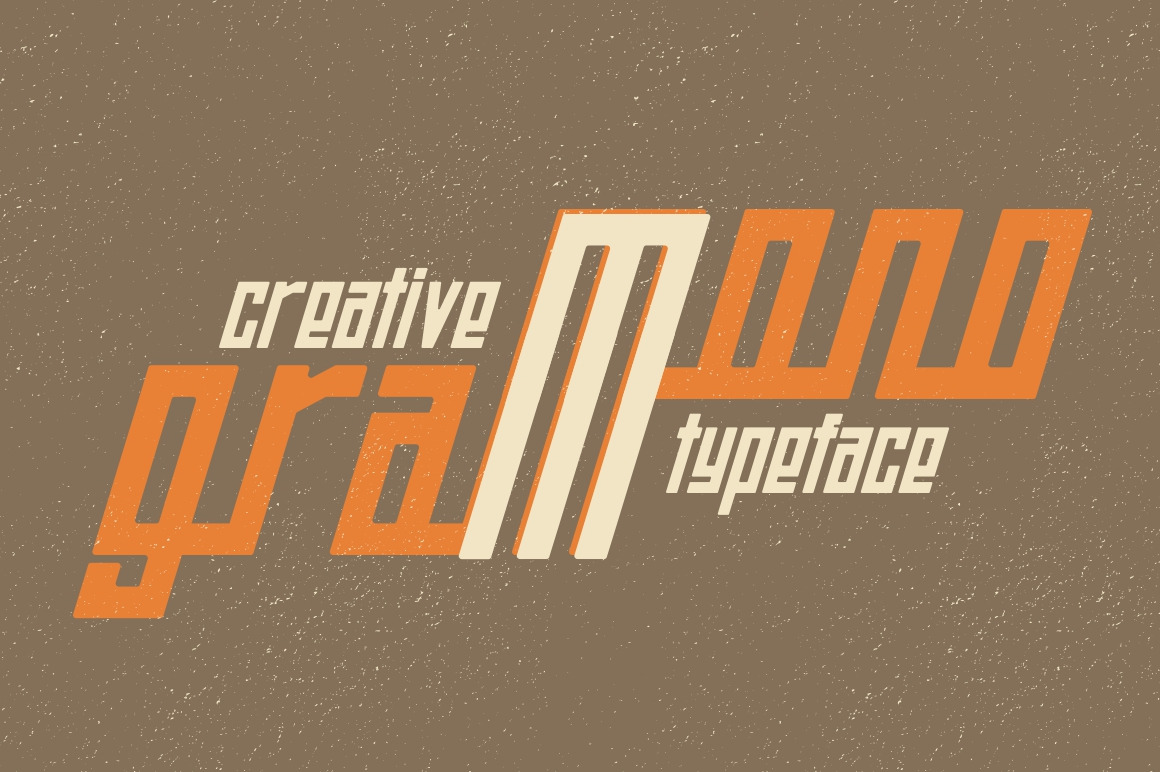
Monogram Typeface
Monogram is the perefct typeface to use for logos & titles.
It features 4 custom ligatures that will help you create nice compositions & get unique results.
104 glyphs are included.